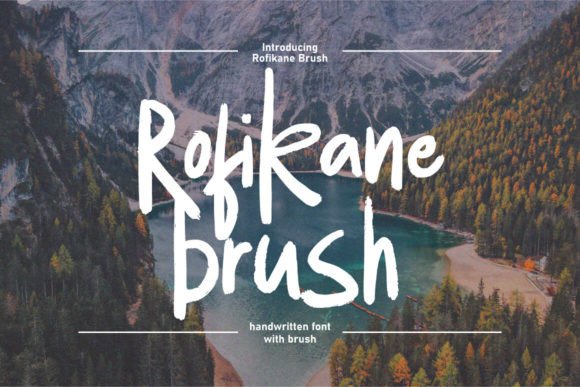
Journey into the world of Rofikane Brush, a font that captivates with its untamed spirit and electrifying energy. This script typeface bursts with personality, demanding attention with its bold strokes and dynamic curves. Whether you're crafting logos that leave a lasting impression, designing badges that exude authority, or creating posters that ignite imaginations, Rofikane Brush is your weapon of choice.
In the realm of cover art, Rofikane Brush reigns supreme. Its ability to command attention and evoke emotions makes it the perfect partner for your creative endeavors. Picture album covers that leap off the shelf, captivating audiences with their raw energy. Imagine book covers that entice readers with their enigmatic charm. With Rofikane Brush, your designs will transcend boundaries, leaving an indelible mark on the minds of those who encounter them.
Unleash your creativity with Rofikane Brush's versatile nature. Its OpenType features, including Stylistic Alternates, Stylistic Sets, and Ligature, provide a treasure trove of possibilities. Effortlessly switch between characters, experiment with letter combinations, and craft unique designs that reflect your artistic vision. The possibilities are endless, empowering you to create masterpieces that resonate with your audience.
Embrace Rofikane Brush, a font that ignites passion and fuels imagination. Its bold spirit and captivating presence will elevate your designs to new heights. Let your creativity soar as you explore the depths of this remarkable font, transforming ordinary designs into extraordinary works of art.